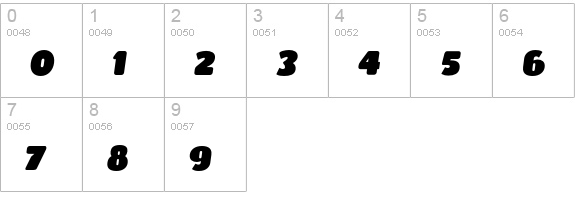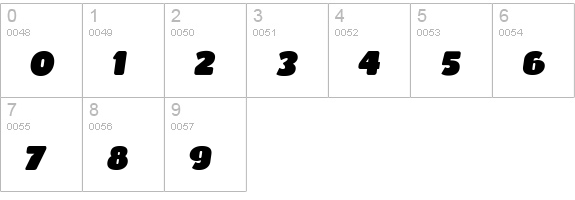
Cepo-Italic Font Details
Cepo-Italic is a distinctive, italic variant in the Cepo typeface family \xE2\x80\x94 well suited to design and typography projects.
Cepo-Italic is a stunning and elegant typeface that exudes sophistication and style. With its sleek lines and graceful curves, this font is perfect for adding a touch of class to any design project. The italicized characters give a sense of movement and fluidity, making it a versatile choice for both headers and body text. What sets Cepo-Italic apart is that it is not only visually appealing but also completely free to download. You can easily access this beautiful font at FontsMarket.com, where you can download it and start using it in your projects right away. Whether you're designing a website, creating a flyer, or crafting a logo, Cepo-Italic is sure to elevate your design and make a lasting impression.